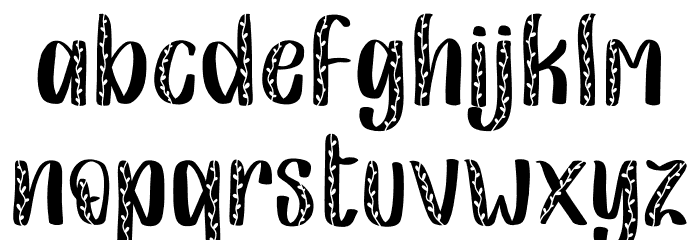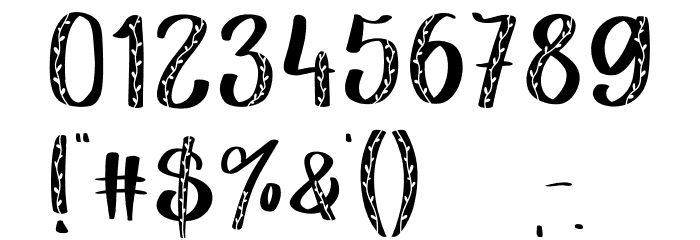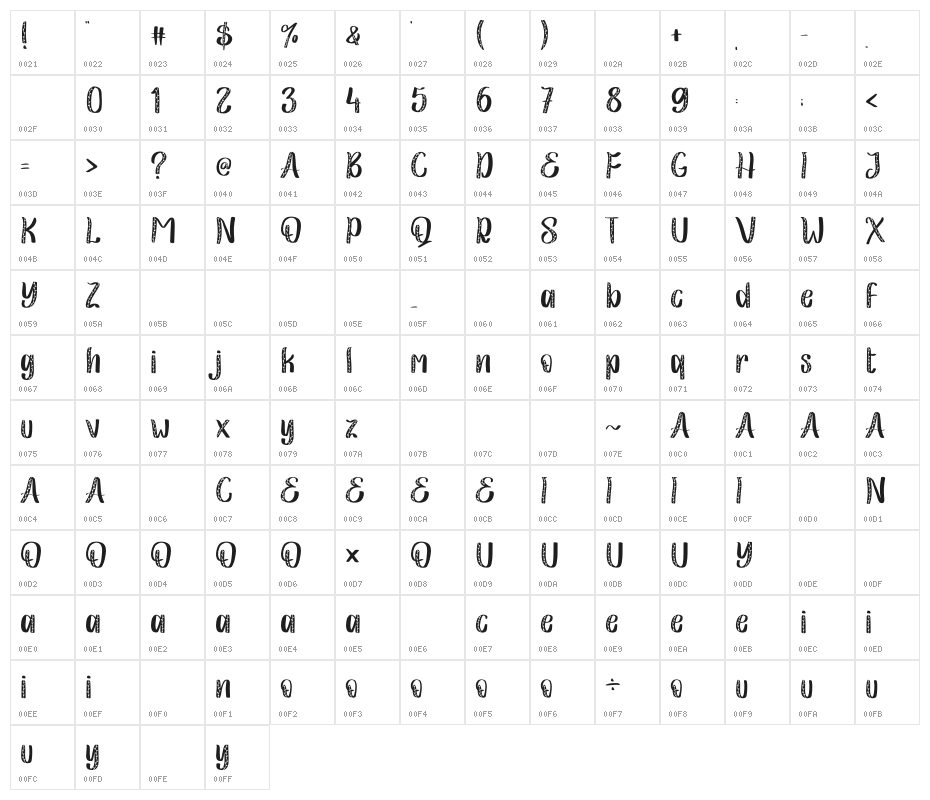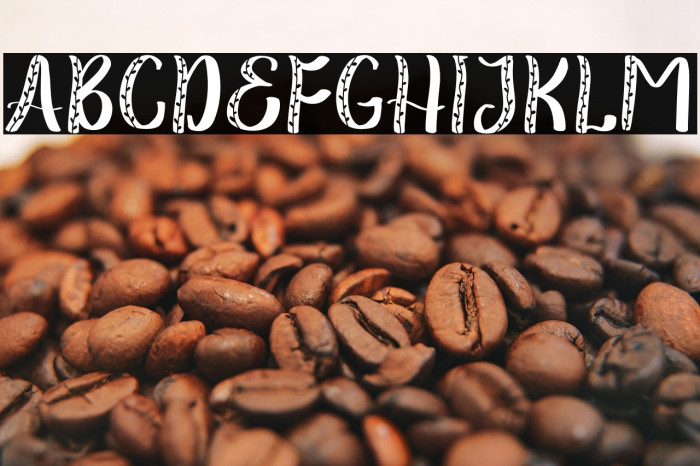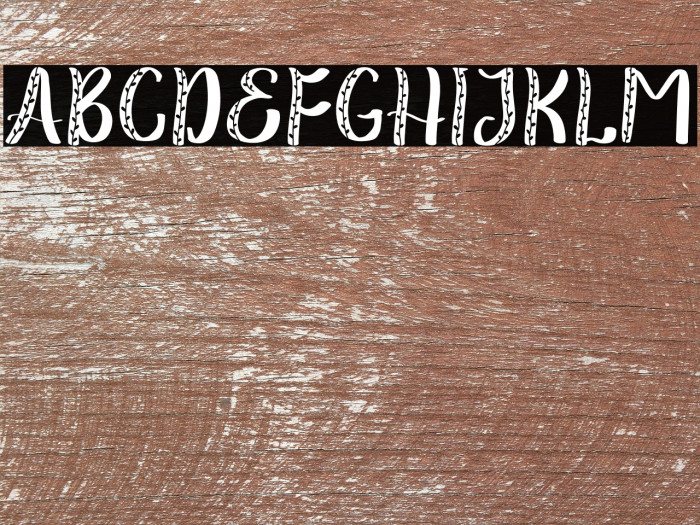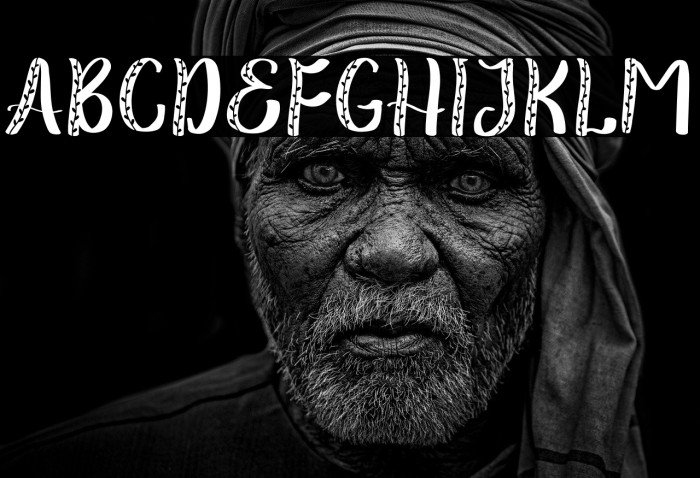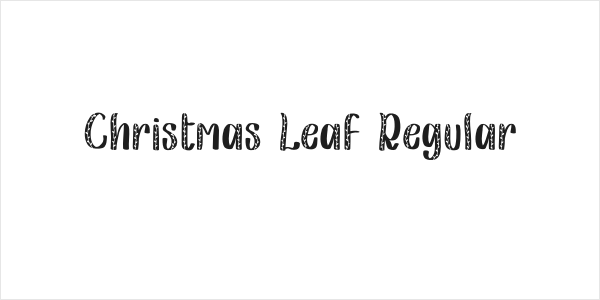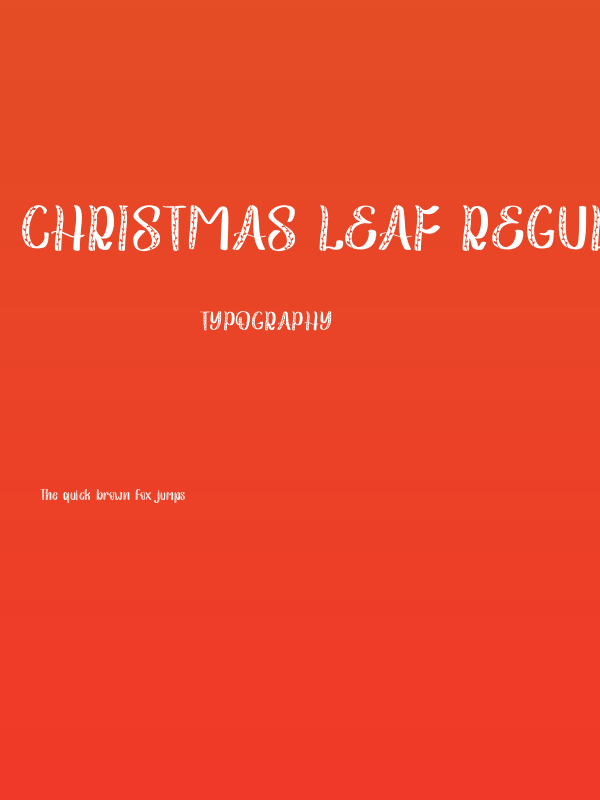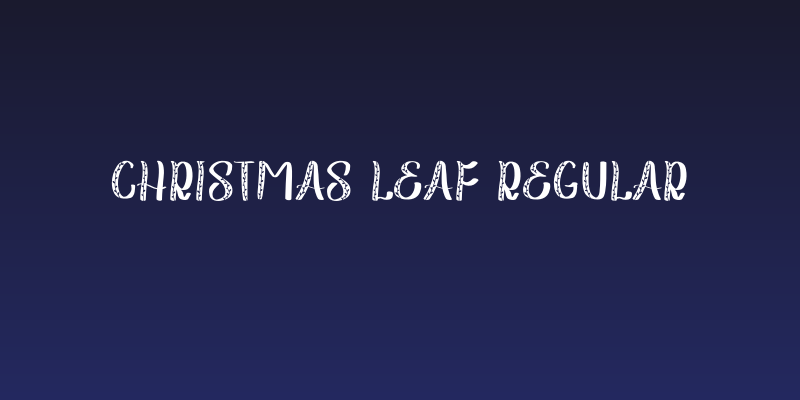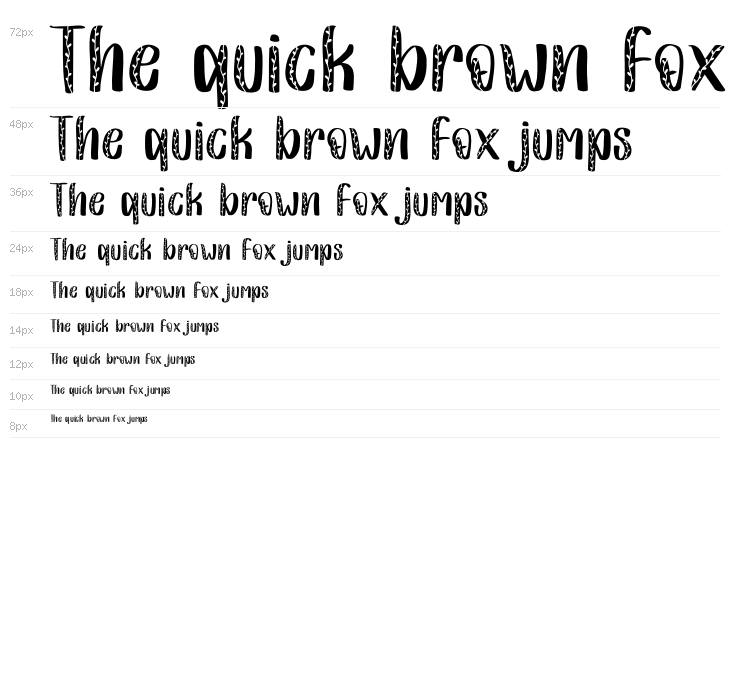
Christmas Leaf Regular Font
This font features a playful and festive design, incorporating leaf-like patterns within each character. The strokes are bold and rounded, giving a cheerful and lively appearance. The uppercase and lowercase letters maintain a consistent style, with a slight slant that adds to the dynamic feel. The numbers and special characters are equally decorative, making them suitable for holiday-themed projects. The overall design is eye-catching and perfect for capturing attention in seasonal displays.
A festive, leaf-patterned font with bold, rounded strokes and a playful style.
- Proposed Projects: Ideal for holiday cards, festive banners, seasonal advertisements, and decorative posters.